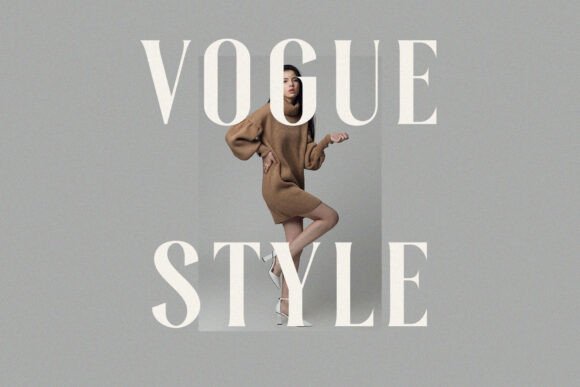
Gloscine Font: Elevate Your Design with Timeless Elegance
In the world of typography, fonts play a crucial role in conveying the tone and personality of a brand or design. For those seeking a sophisticated and elegant look, Gloscine Font is an exceptional choice. This modern vintage serif font is designed to bring a touch of luxury and refinement to any project, making it perfect for high-end branding, editorial design, and more.
The Essence of Gloscine Font
Gloscine is a classy condensed serif font that exudes timeless elegance and sophistication. Its tall letterforms and sharp, stylish serifs are inspired by the glamour of editorial typography and old-world charm. This font seamlessly blends classic serif structure with a contemporary twist, making it ideal for projects that demand both elegance and modern flair.
Key Features of Gloscine Font
- Uppercase & Lowercase Letters: Gloscine font includes both uppercase and lowercase letters, providing flexibility and versatility for various design applications.
- Multilingual Support: With multilingual support, Gloscine can be used for projects that require text in multiple languages, making it a great choice for global brands and publications.
- Perfect for Luxury, Fashion, and Editorial Design: Gloscine’s sophisticated design makes it particularly suited for luxury branding, fashion logos, magazine headlines, wedding invitations, and high-end packaging.
Applications of Gloscine Font
Gloscine’s versatility and elegance make it suitable for a wide range of design applications. Here are some of the areas where Gloscine truly shines:
Luxury Branding
For luxury brands, establishing a sophisticated and high-end image is crucial. Gloscine font, with its refined and condensed look, helps brands convey elegance and exclusivity. Whether it’s for a logo, packaging, or marketing materials, Gloscine adds a touch of class and sophistication.
Editorial Design
In editorial design, typography plays a significant role in capturing the reader’s attention and enhancing the reading experience. Gloscine’s stylish serifs and classic structure make it perfect for magazine headlines, article titles, and other editorial content where visual appeal is paramount.
Fashion Logos and Branding
The fashion industry demands high-end aesthetics and elegance, making Gloscine a great fit for fashion logos, brand names, and marketing materials. Its sophisticated look aligns well with the luxury and style that fashion brands aim to convey.
Wedding Invitations and Stationery
For wedding invitations and stationery, Gloscine offers a touch of elegance and sophistication. Its refined design makes it suitable for formal events and high-end celebrations, adding a classy feel to invitations, menus, and other wedding-related materials.
High-End Packaging
Gloscine’s luxurious appearance makes it an excellent choice for high-end packaging. Whether it’s for premium cosmetics, luxury food products, or high-end electronics, Gloscine helps brands stand out on store shelves with its sophisticated and refined look.
Why Choose Gloscine Font?
Choosing Gloscine font for your design project offers several advantages:
Timeless Elegance
Gloscine’s design combines vintage charm with modern sophistication, providing a timeless look that won’t go out of style.
Versatility
With its comprehensive set of characters and multilingual support, Gloscine is versatile enough to be used in various design applications, from luxury branding to editorial design.
High-End Aesthetic
Gloscine’s refined and condensed look makes it perfect for projects that require a high-end aesthetic, ensuring that your design stands out with elegance and sophistication.
Gloscine Font is a classy condensed serif font that brings timeless elegance and sophistication to any design project. Its refined look, versatile features, and high-end aesthetic make it perfect for luxury branding, editorial design, fashion logos, wedding invitations, and high-end packaging. By choosing Gloscine, designers can elevate their typography and create visually stunning projects that exude class and sophistication.